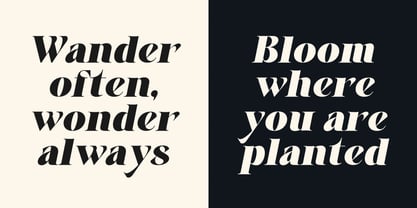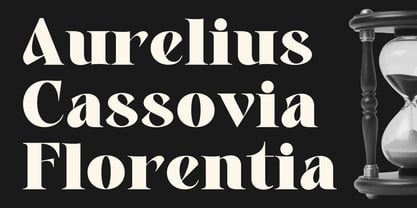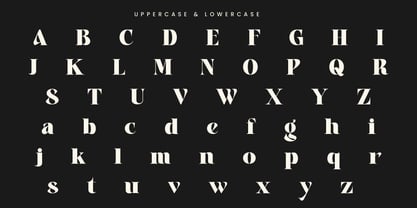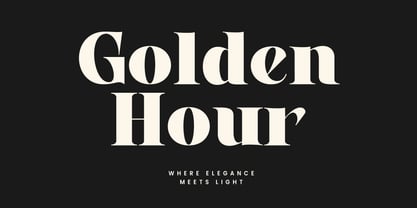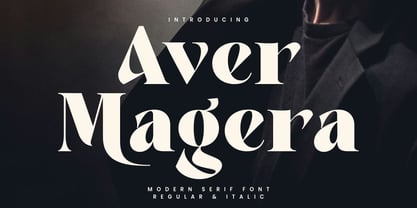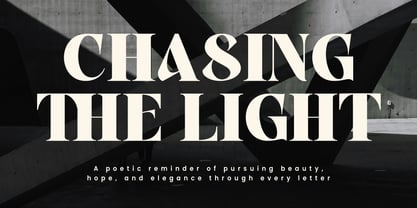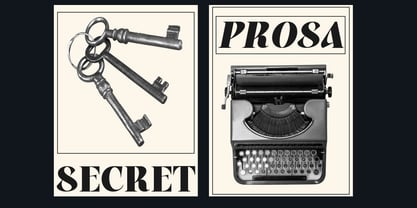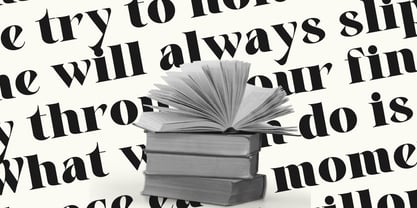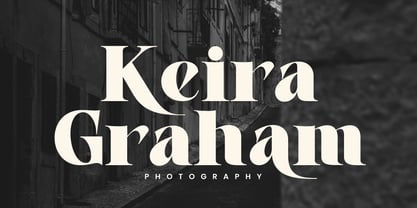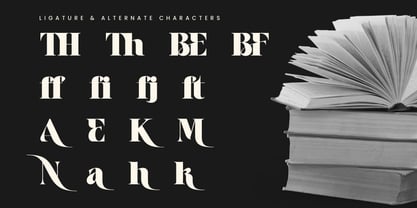
Aver Magera
by Rvandtype
Aver Magera is a modern serif font designed to bring elegance and sophistication to your creative projects. This stylish serif typeface combines bold contrasts with timeless details, making it perfect for branding, logos, wedding invitations, packaging, magazines, and editorial design. Whether you’re working on a luxury brand logo, designing a wedding invitation font, or creating fashion editorial layouts, Aver Magera will add a professional and artistic touch. Its refined shapes and unique letterforms make it a standout typeface for modern designers.